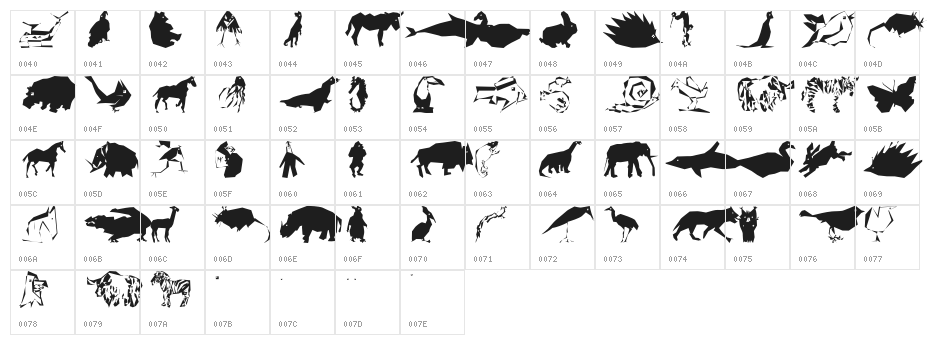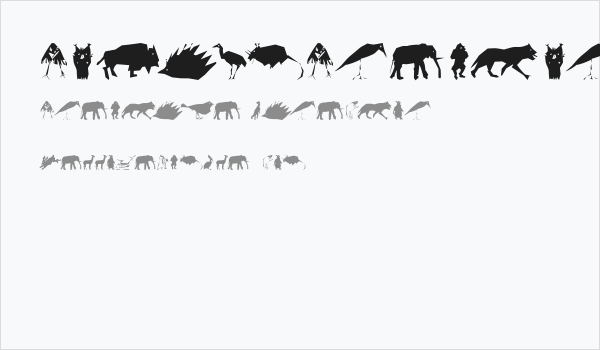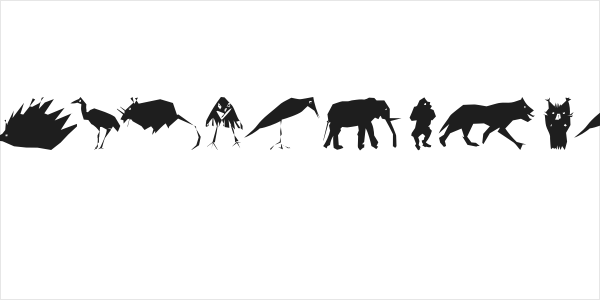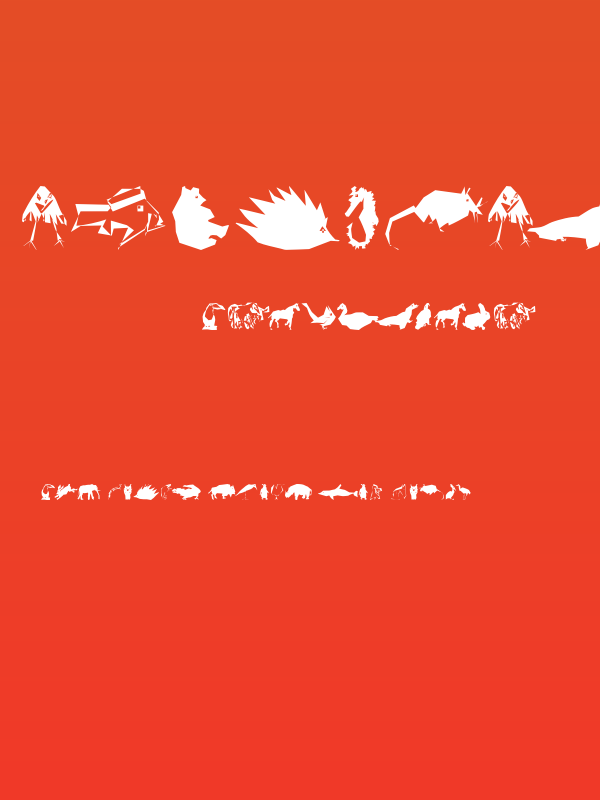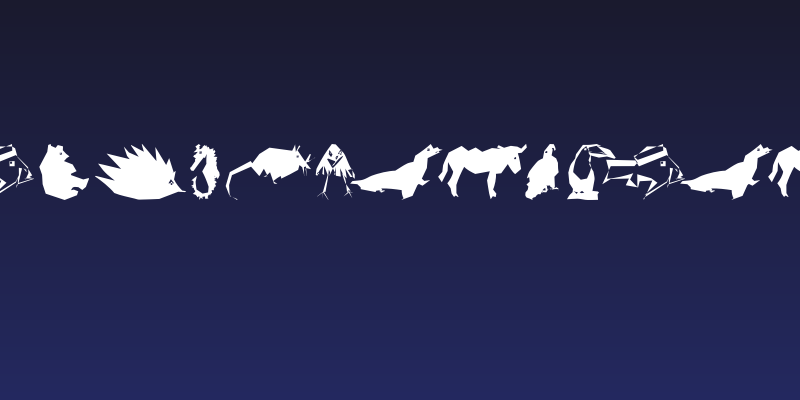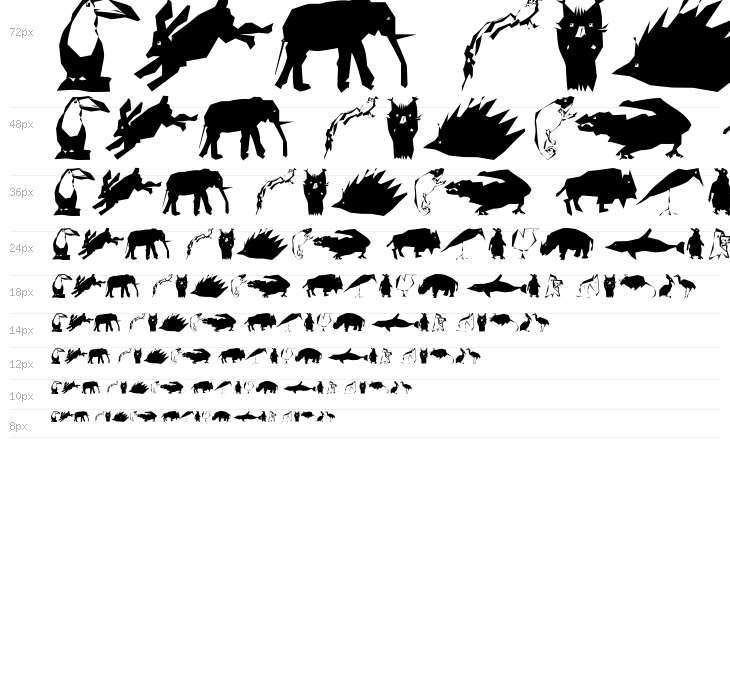
CubismCreatures Font
CubismCreatures Description
A decorative display font composed of abstract, cubist-inspired animal silhouettes for each character, blending geometric shapes and sharp angles to form recognizable creatures.
| Overall Style | Decorative, Modern, Abstract |
| Use Case | Headlines, Logos, Posters, Themed branding |
| Proposed Projects | Children's books, posters, branding for zoos or wildlife organizations, educational materials, creative event invitations. |